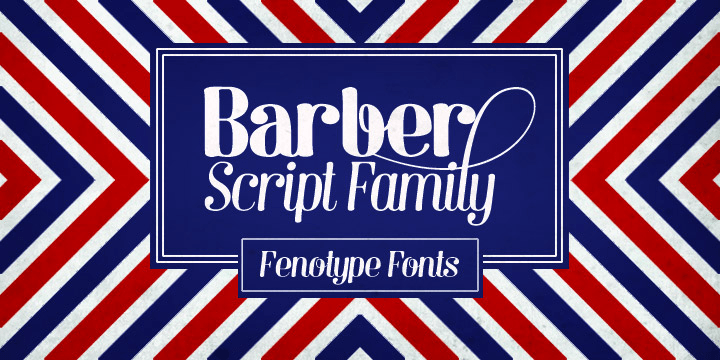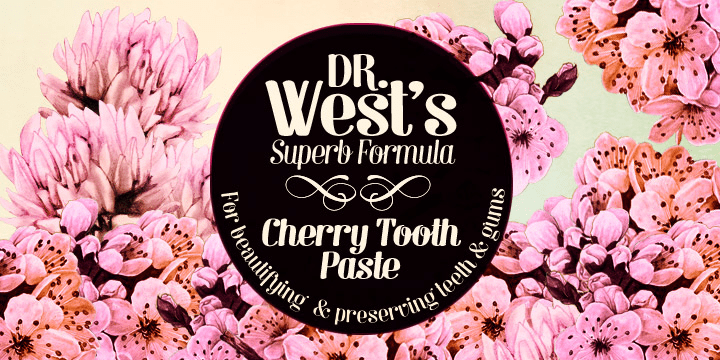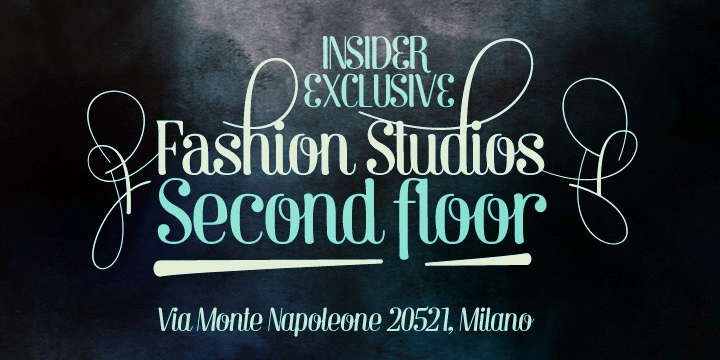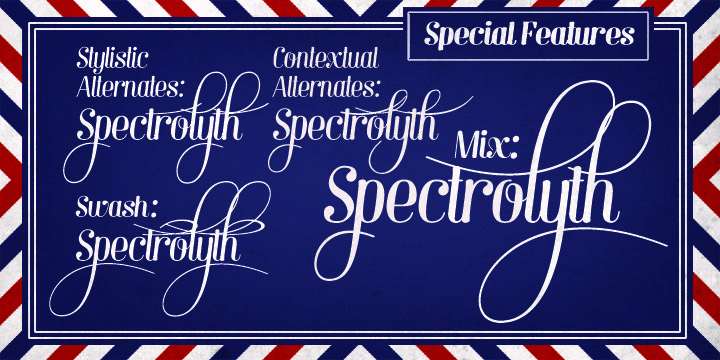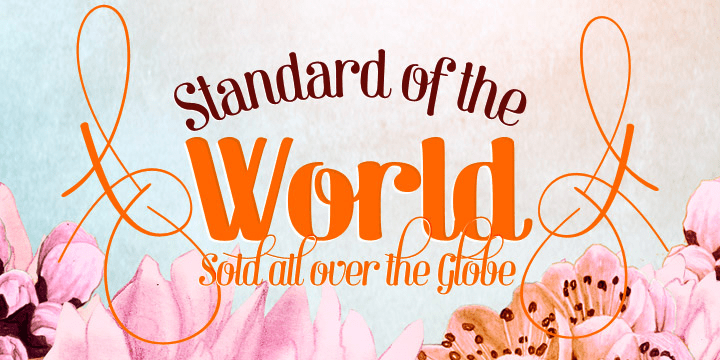
Barber
Barber is an Art Deco sans serif family with a distinctly vintage point of view, drawing on 1920s and 1930s lettering for a crisp, stylish display look. Its clean geometry and period character give layouts a polished retro tone that feels equally sharp and ornamental.
This family includes 8 styles: Barber 1, Barber 2, Barber 1 Italic, Barber 2 Italic, Barber 3, Barber 3 Italic, Barber 4, and Barber 4 Italic. That range makes it easy to explore different emphases within the same visual mood, from upright headline settings to more expressive italic treatments.
Designed by Fenotype, Barber is well suited to branding, posters, packaging, signage, and other display work that calls for a refined vintage voice. If you want an Art Deco sans with multiple stylistic directions built into one family, this set offers a versatile way to capture that era-inspired feel.